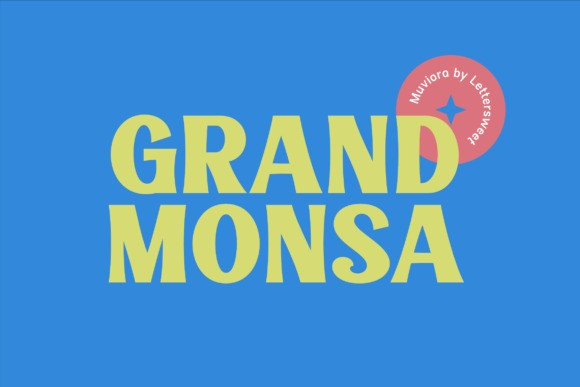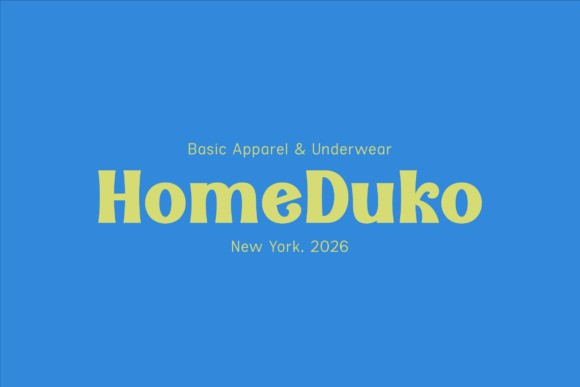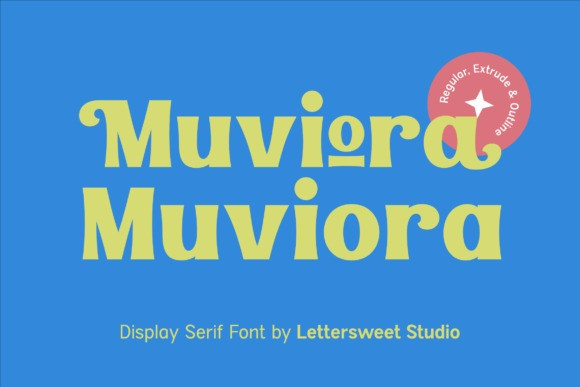
Muviora Font
Muviora Font is a bold and playful display serif font designed to instantly grab attention. With its soft curves, chunky letterforms, and cheerful character, Muviora brings a friendly yet confident voice to your designs.
This font is perfect for branding, packaging, posters, children’s projects, playful logos, headlines, book covers, social media graphics, and creative advertising. Its unique serif style feels modern, fun, and expressive—making your message stand out without feeling childish or messy.
Muviora works best at large sizes, where its personality truly shines. Whether you’re creating a joyful brand identity or an eye-catching visual statement, Muviora helps your design feel warm, memorable, and full of character.